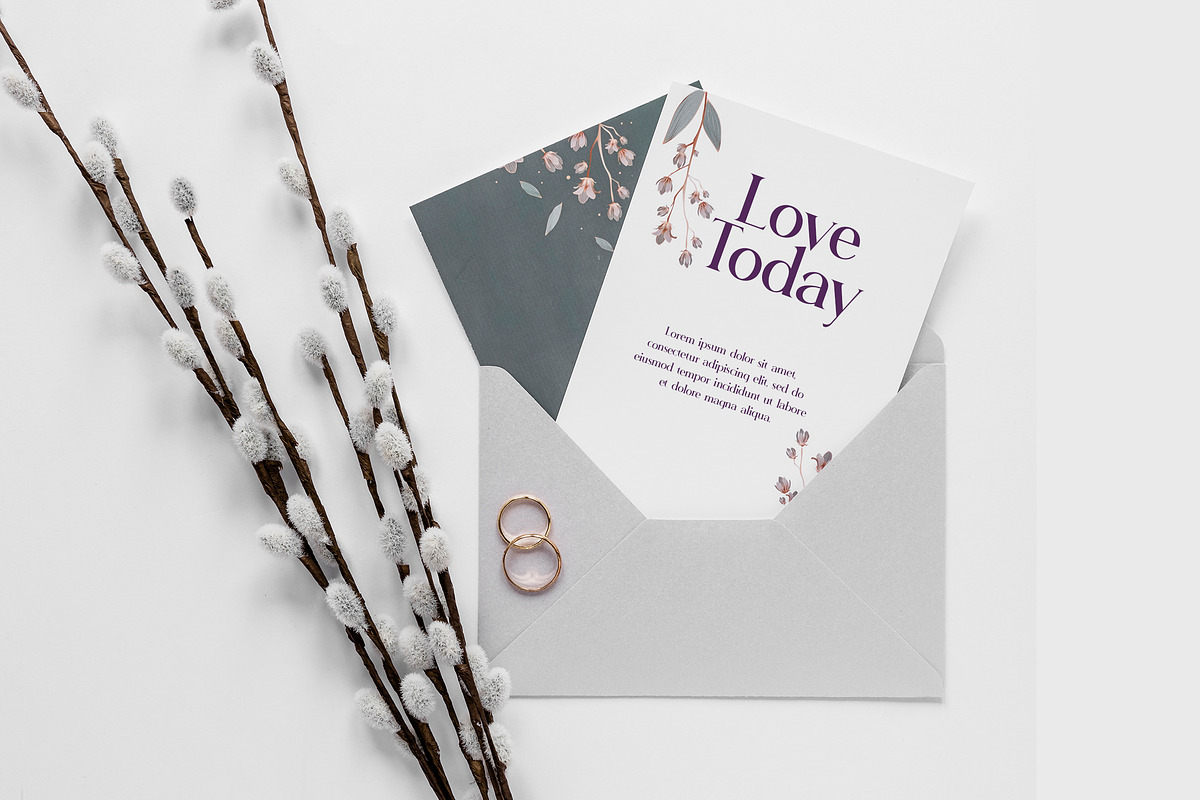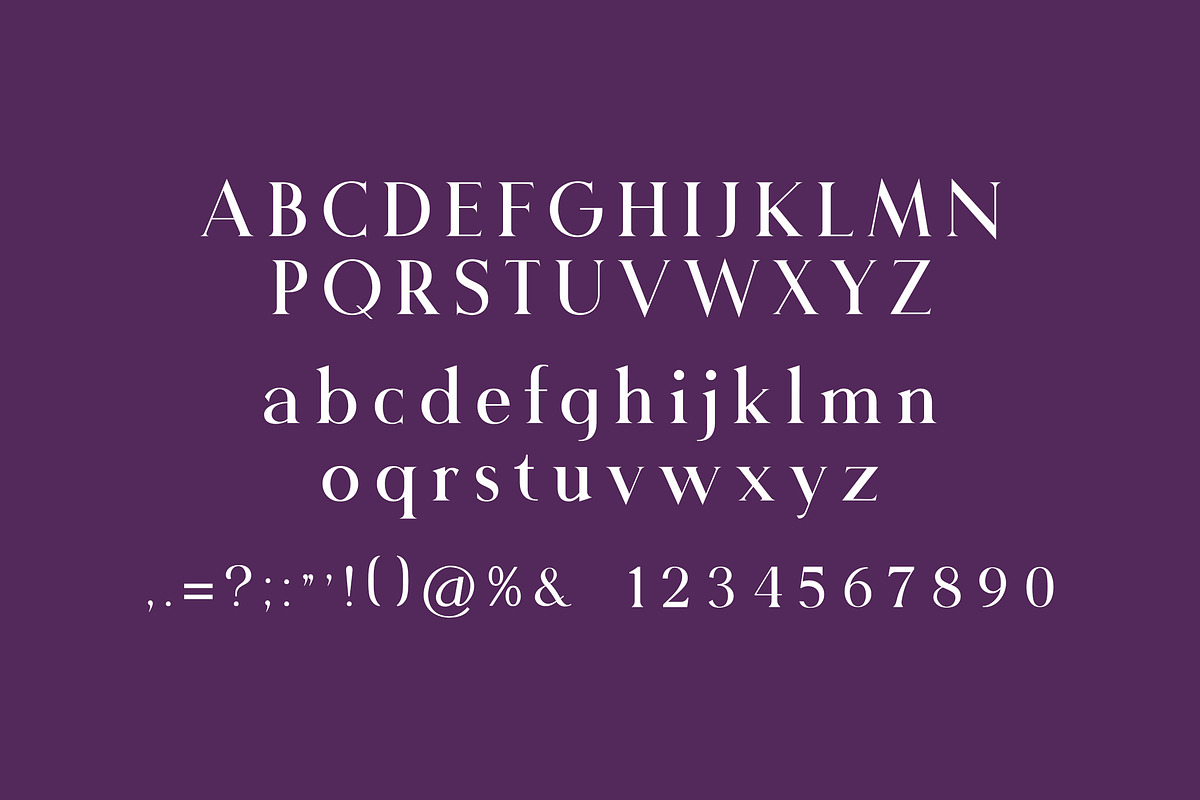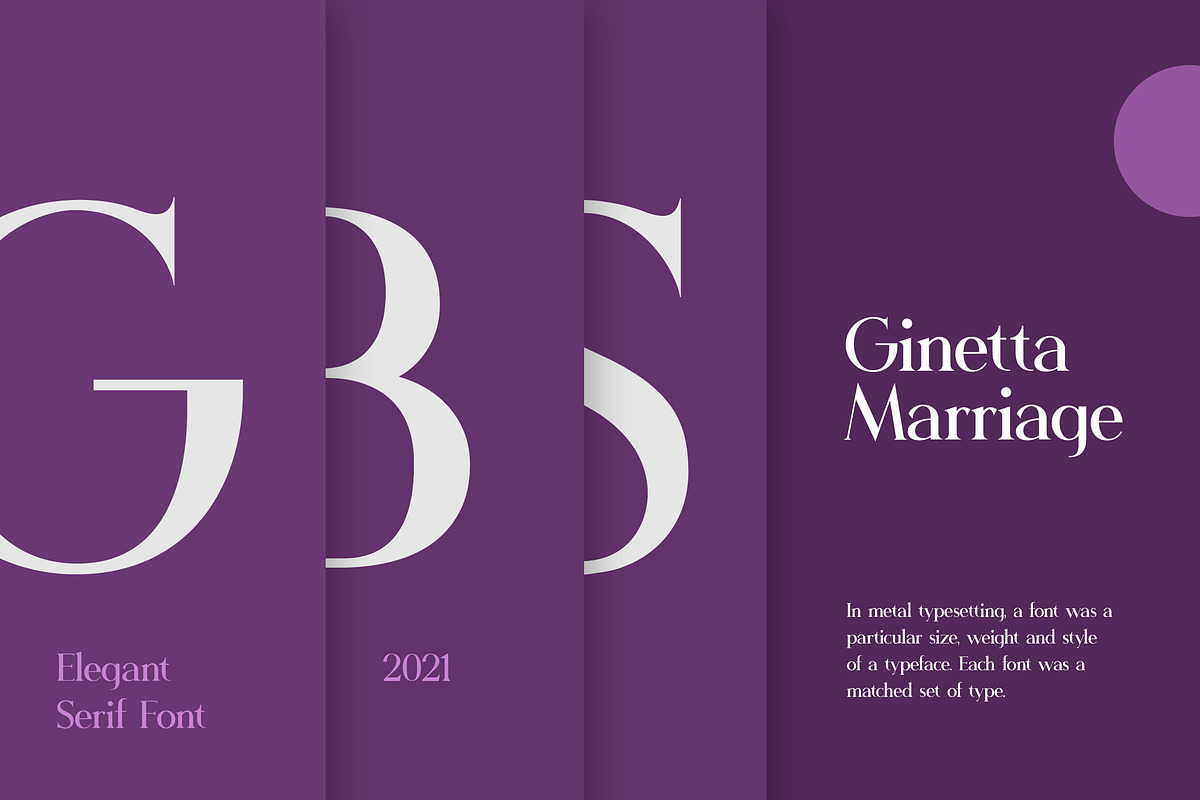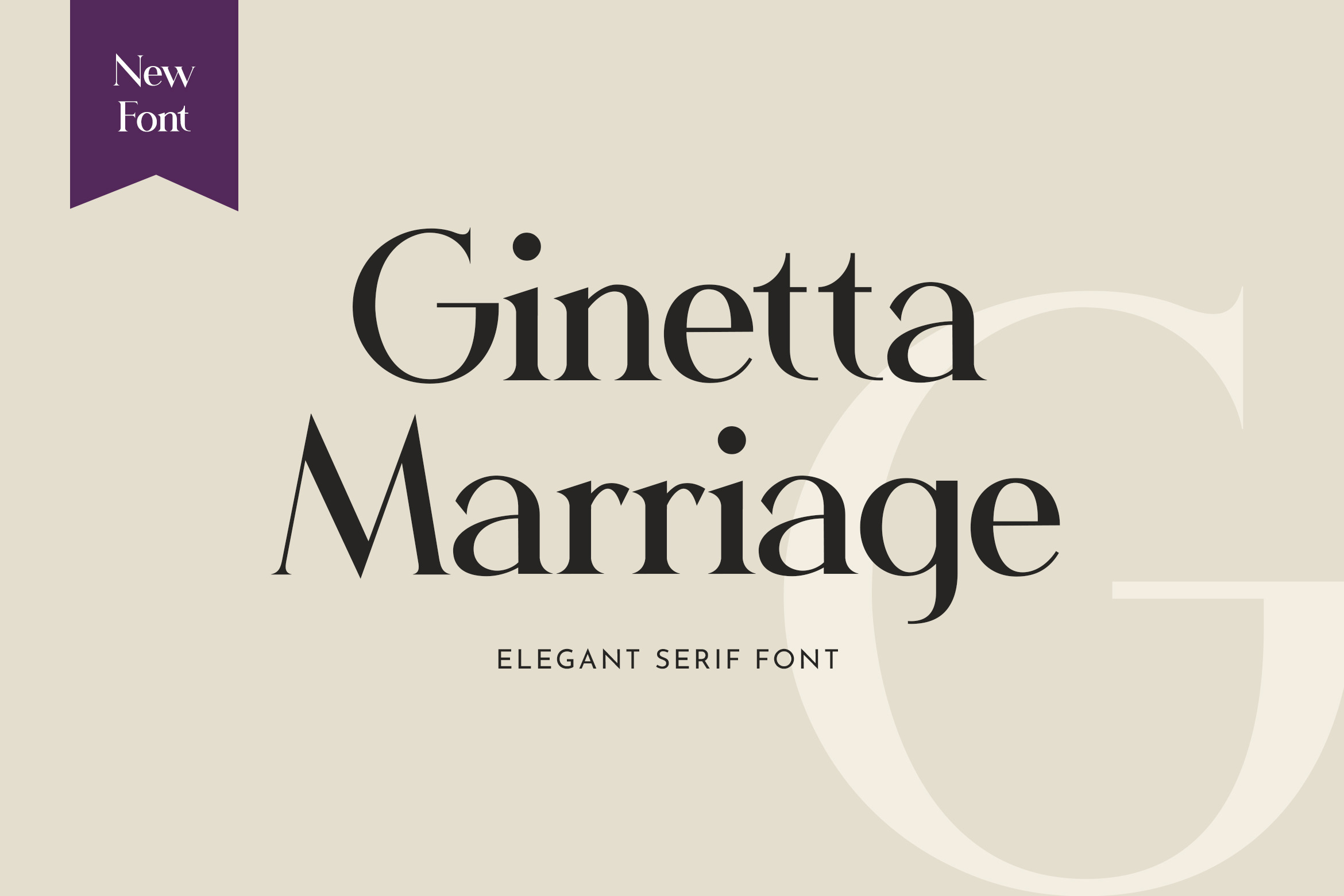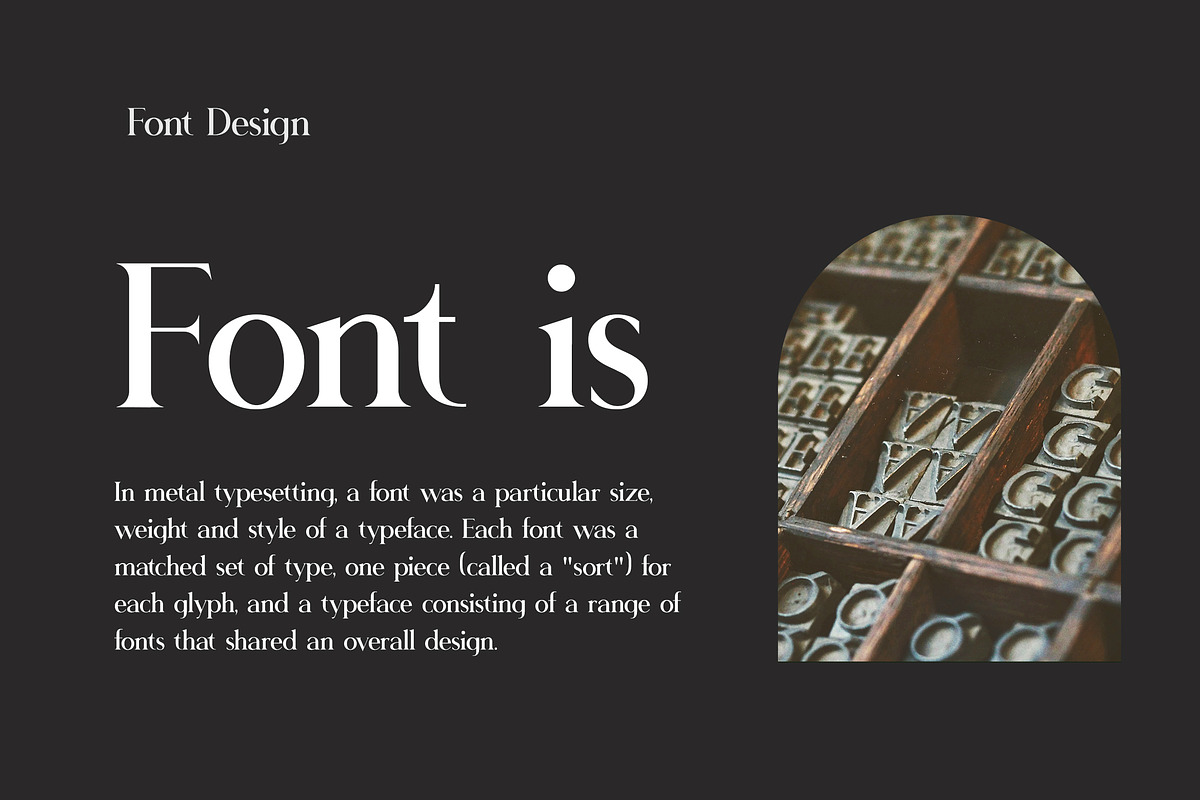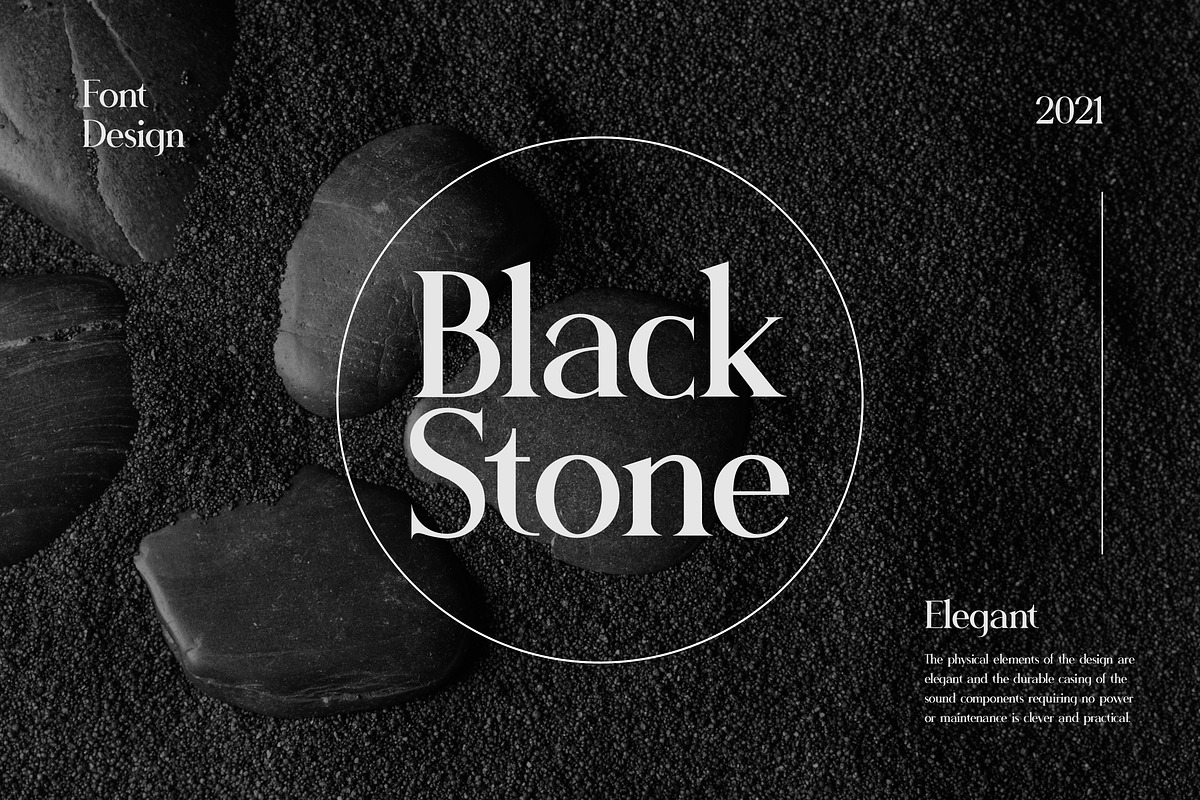
Ginetta Marriage Serif Font
Introducing our new product the name is Ginetta Marriage Serif Font. Modern Serif font that feels beautiful classy, elegant, and modern. This font is ideally suited for a wide variety of projects, such as signature, stationery, logo, wedding, typography quotes, magazine or book covers, website headers, clothing, branding, packaging design, and more. Also, fashion-related branding or editorial design displays both masculine and feminine qualities.